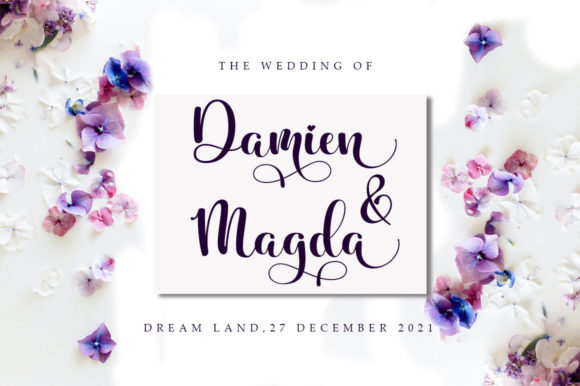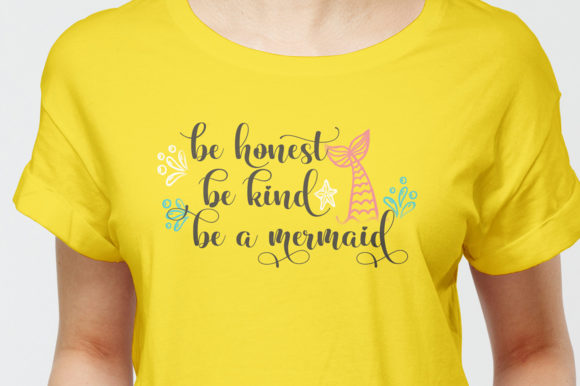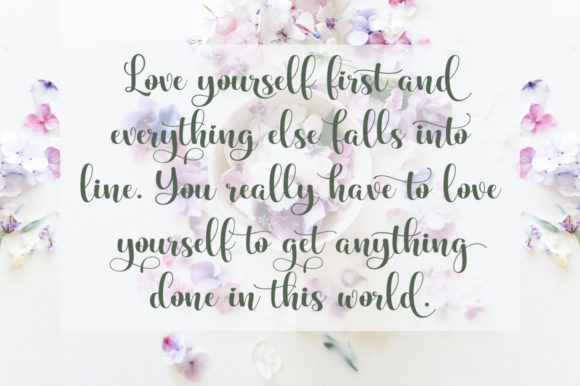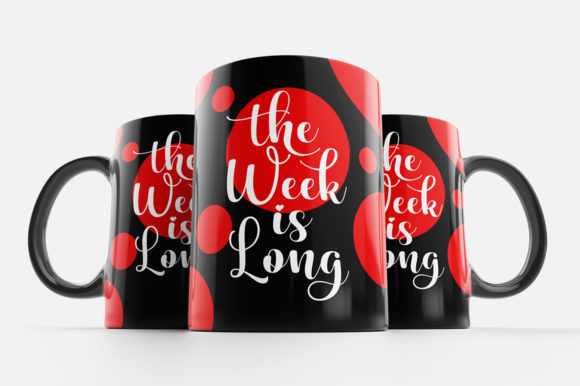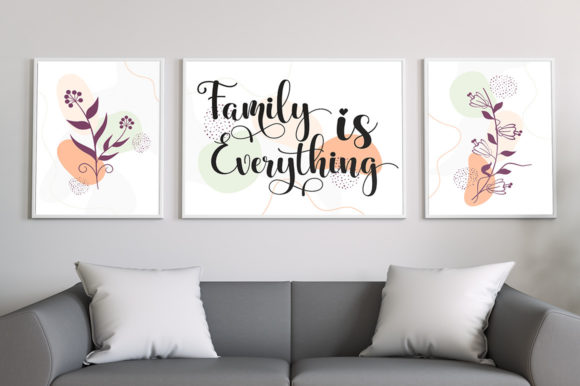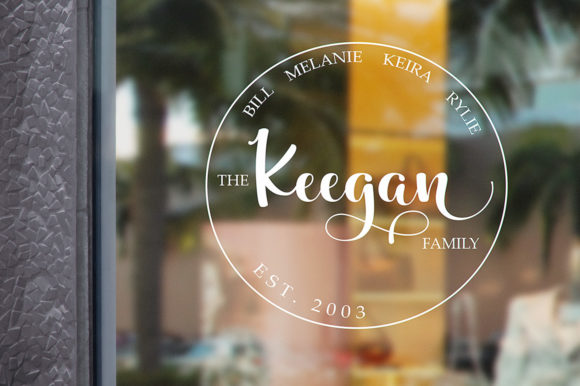
Bondieta Script Font: Elevate Your Designs with Elegance and Charm
In the world of typography, few fonts manage to capture the essence of elegance and charm as beautifully as the Bondieta Script Font. This exquisite font is a perfect blend of sophistication and playfulness, making it an ideal choice for designers and crafters looking to add a touch of personality to their projects. Whether you’re working on wedding invitations, thank you cards, quotes, greeting cards, logos, or business cards, Bondieta Script is sure to make your designs stand out.
The Beauty of Bondieta Script
Bondieta Script feels equally charming and elegant, making it a versatile font that can be used in a variety of design applications. Its handwritten style gives it a personal and intimate feel, perfect for creating designs that require a human touch. The font’s flowing lines and delicate curves make it a stunning addition to any design, adding a level of sophistication and refinement that’s hard to achieve with other fonts.
One of the most popular uses for Bondieta Script is in wedding and event designs. The font’s elegant and romantic feel makes it perfect for wedding invitations, save-the-date cards, and other stationery. It’s also a great choice for designing thank you cards, quotes, and greeting cards that require a personal touch. With Bondieta Script, you can create beautiful and memorable designs that will leave a lasting impression on your clients or loved ones.
Another advantage of Bondieta Script is that it’s PUA (Private Use Area) encoded, which means you can access all of the glyphs and swashes with ease. This feature makes it easy to customize your designs and add unique touches that will set your work apart. With PUA encoding, you can access a wide range of characters, including ligatures, ornaments, and swashes, giving you endless possibilities for creative expression.
Bondieta Script is a versatile font that can be used in a wide range of design applications. Here are just a few ideas to get you started:
- Quotes and typographic art
Why Choose Bondieta Script?
So why choose Bondieta Script for your design projects? Here are just a few reasons:
- Elegant and charming: Bondieta Script adds a touch of sophistication and refinement to any design.
- Versatile: The font can be used in a wide range of design applications, from wedding invitations to logos and branding materials.
- Easy to use: Bondieta Script is PUA encoded, making it easy to access all of the glyphs and swashes.
- Unique: The font’s handwritten style gives it a personal and intimate feel that’s hard to achieve with other fonts.
In conclusion, Bondieta Script Font is a beautiful and versatile font that’s perfect for designers and crafters looking to add a touch of elegance and charm to their projects. With its handwritten style, PUA encoding, and endless design possibilities, Bondieta Script is a great choice for anyone looking to create stunning and memorable designs. Whether you’re working on wedding invitations, logos, or social media graphics, Bondieta Script is sure to elevate your designs to the next level.